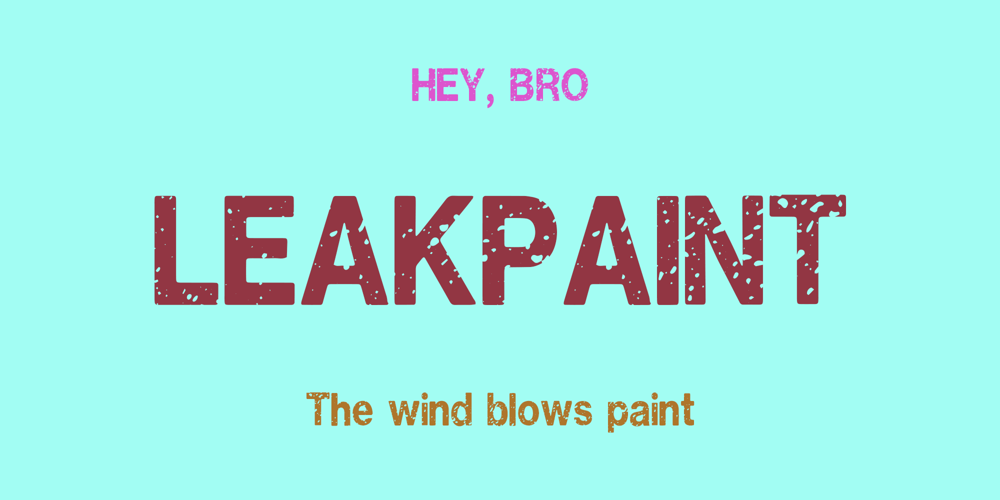
Leakpaint Font Family was designed by Andrew Tomson and published by Andrew Tomson. Leakpaint contains 2 styles and family package options. Hello friends!Drawing is a great way to pass the time. Sometimes, clumsy people can spill paint on paper or on an already completed drawing. What do we end up with? A ruined drawing or a new work of art? I think the latter. After all, every drawing is unique and a unique thing. Even if you are drawing a stick man! This font presents the opportunity to see what happens if invisible ink is spilled on it. This font is great for your new and unique projects for social media, lettering and just for home use! A little sloppy, a little bouncy, so it’s so lively and magical!I wish you good luck and love!